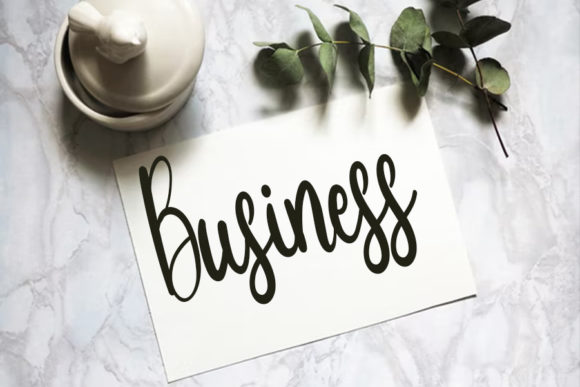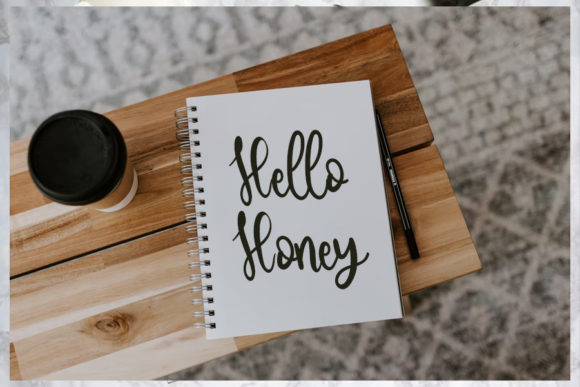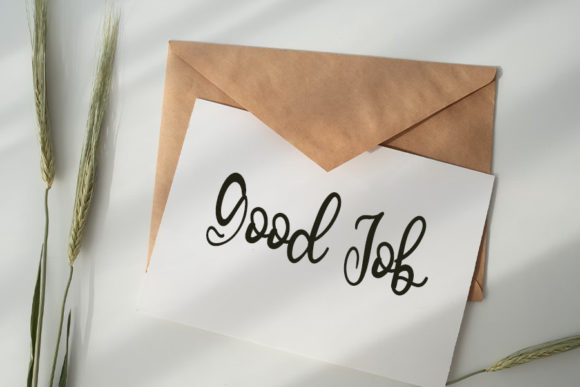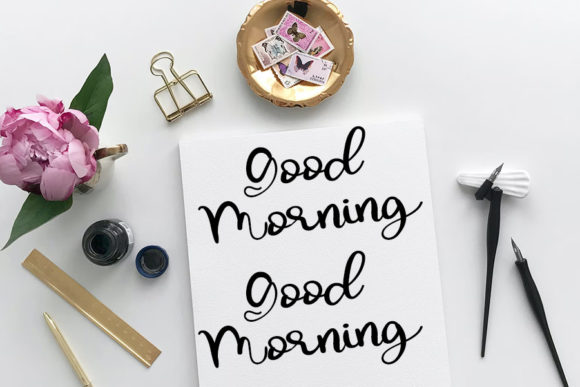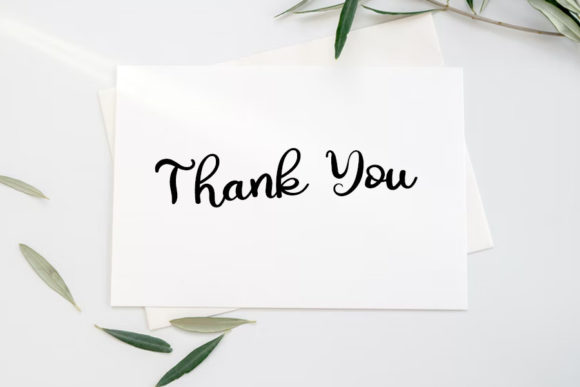
Introducing Black Sweet Font: The Ultimate Choice for Elegant Designs
Are you a designer or crafter looking for a font that exudes charm and elegance? Look no further than the Black Sweet Font. This beautiful, handwritten font is perfect for a variety of design projects, from wedding invitations and thank you cards to quotes, greeting cards, logos, and business cards.
The Charm of Black Sweet Font
Black Sweet Font feels equally charming and elegant, making it an excellent choice for designers who want to add a touch of sophistication to their work. Its unique, cursive style is sure to capture the attention of your audience and leave a lasting impression. Whether you’re designing a wedding invitation or a business card, this font is sure to elevate your design to the next level.
One of the best things about Black Sweet Font is its versatility. It can be used for a wide range of design projects, including:
- Wedding invitations and thank you cards
- Quotes and greeting cards
- Logos and business cards
Its elegant and cursive style makes it perfect for designs that require a personal touch.
Black Sweet Font is PUA encoded, which means you can access all of the glyphs and swashes with ease. This feature makes it easy to customize your design and add your own personal touch. With PUA encoding, you can:
- Access a wide range of glyphs and swashes
- Easily customize your design
- Add your own personal touch to your work
Why Choose Black Sweet Font?
So, why choose Black Sweet Font for your design projects? Here are just a few reasons:
- Elegant and charming design
- Versatile and can be used for a wide range of projects
- Perfect for designs that require a personal touch
Tips for Using Black Sweet Font
Here are a few tips for using Black Sweet Font in your design projects:
- Use it for headings and titles to add a touch of elegance
- Pair it with a simple font for body text to create contrast
- Experiment with different colors and textures to add depth
- Use it to create custom graphics and illustrations
Black Sweet Font is a beautiful, elegant, and charming font that’s perfect for designers and crafters who want to add a touch of sophistication to their work. Its versatility, PUA encoding, and elegant design make it an excellent choice for a wide range of design projects. Whether you’re designing a wedding invitation or a business card, Black Sweet Font is sure to elevate your design to the next level.